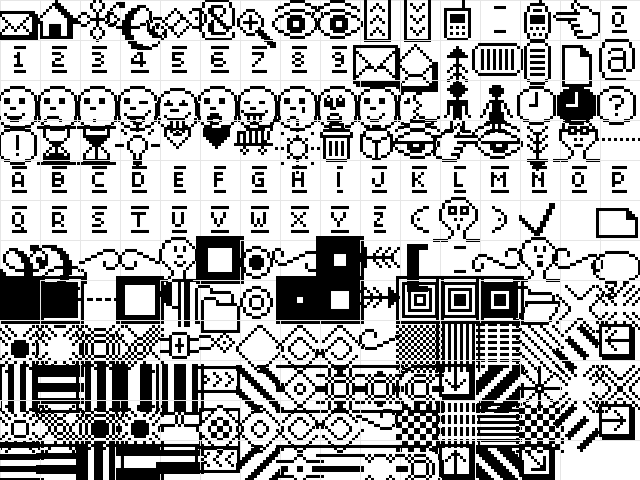
Complete UF Mr. Pixel Tools Regular glyph index. Displaying only characters natively supported by UF Mr. Pixel Tools Regular font.
UF Mr. Pixel Tools is rooted in pixel-grid construction, making it a natural fit for game UI, retro computing aesthetics, and digital nostalgia projects.
Well-suited to indie game interfaces, retro computing aesthetics, and pixel art-adjacent design work.
Font Pairing: Pairs well with a humanist sans-serif for body copy - the contrast between mechanical precision and organic warmth creates a compelling typographic dynamic.
Pro Tip: Use UF Mr. Pixel Tools at sizes that align with its pixel grid for the sharpest rendering - scaling to non-integer multiples can introduce unwanted blur.